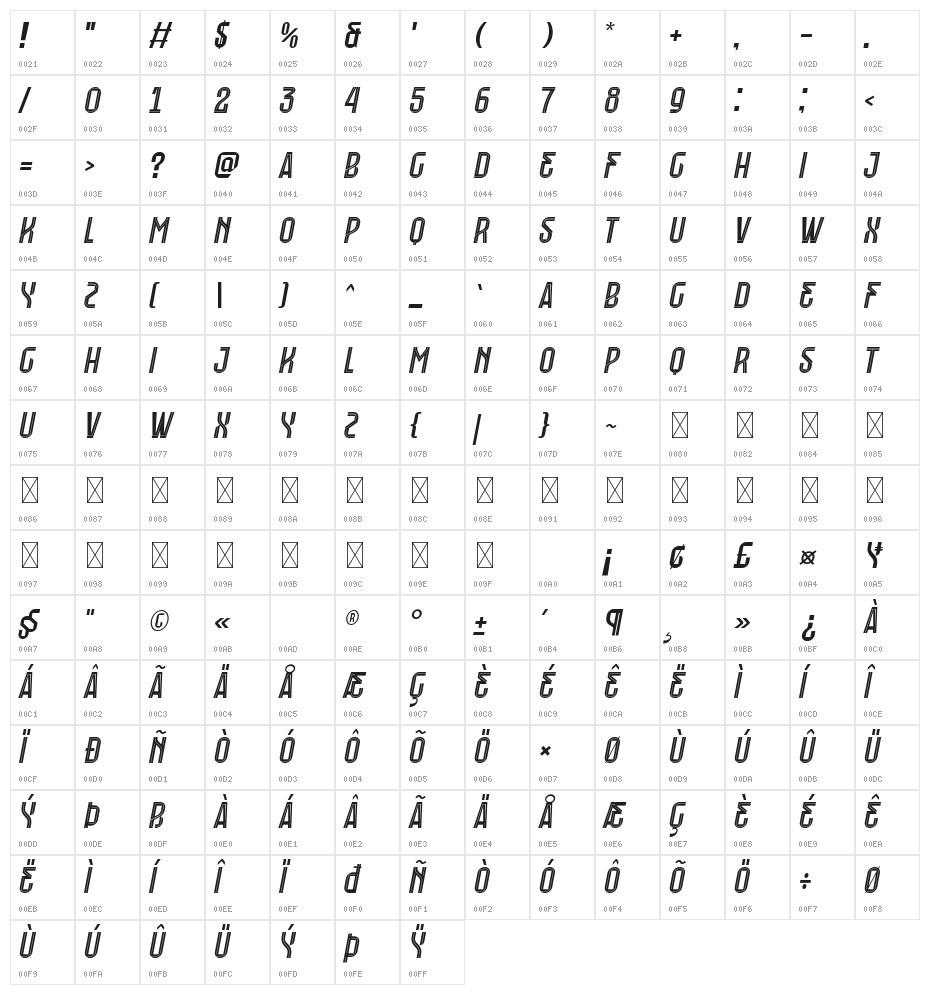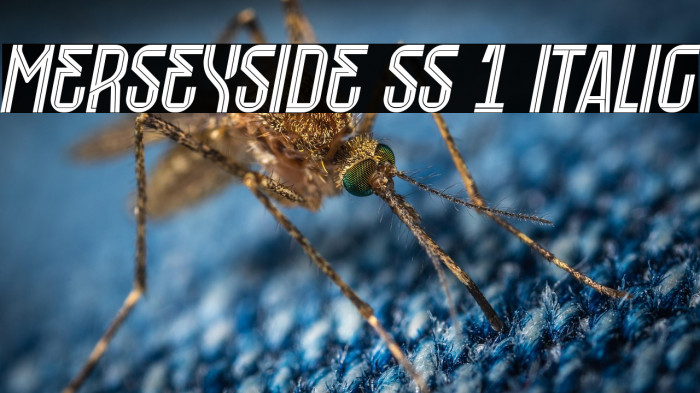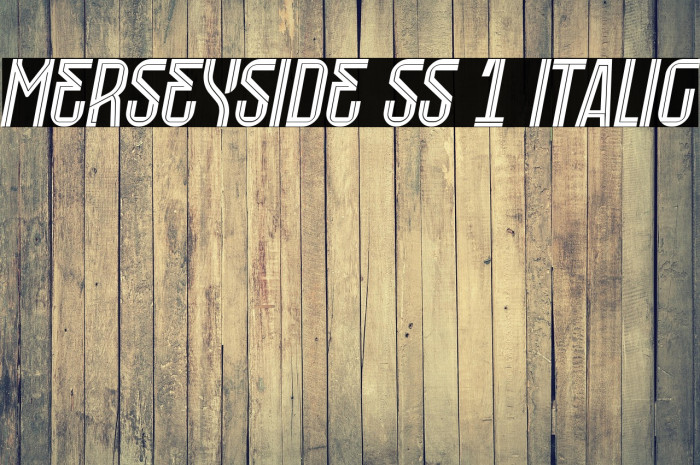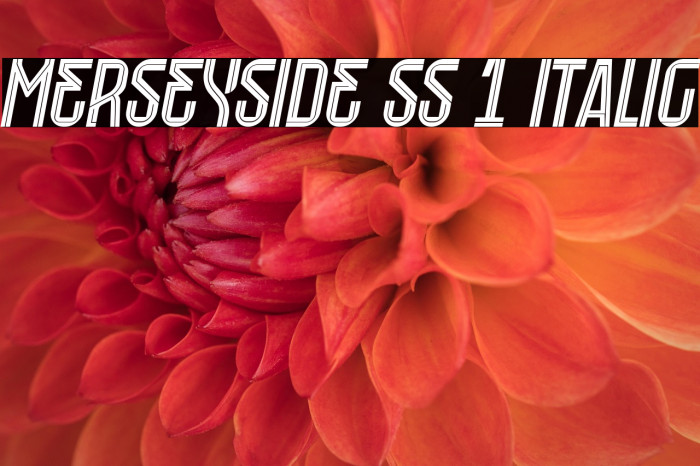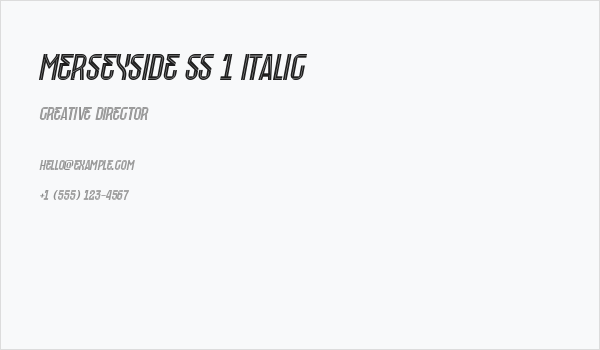
Merseyside SS 1 Italic Font
Merseyside SS 1 Italic Description
This font features a dynamic and modern design with a distinct italic slant, giving it a sense of motion and energy. The characters are bold with a unique double-line structure that adds depth and dimension. The uppercase and lowercase letters maintain a consistent style, with sharp angles and clean lines. The numerals and special characters follow the same aesthetic, ensuring uniformity across all elements. This font's striking appearance makes it ideal for attention-grabbing designs.